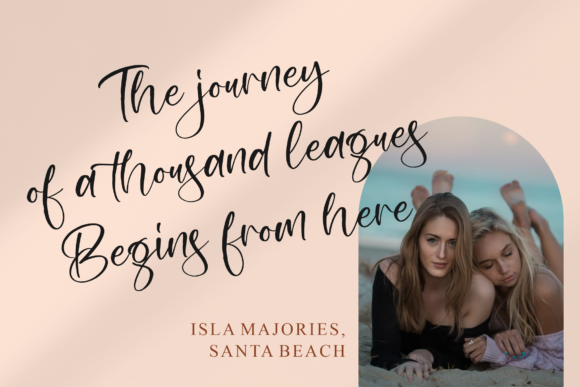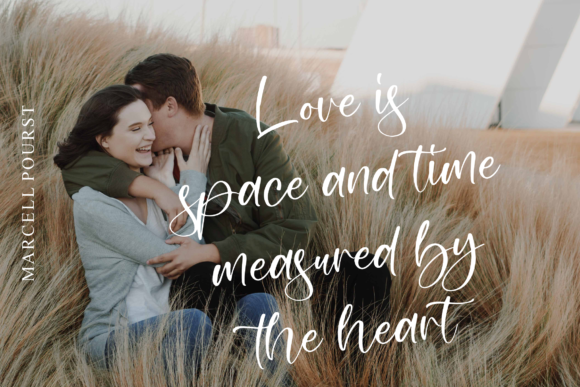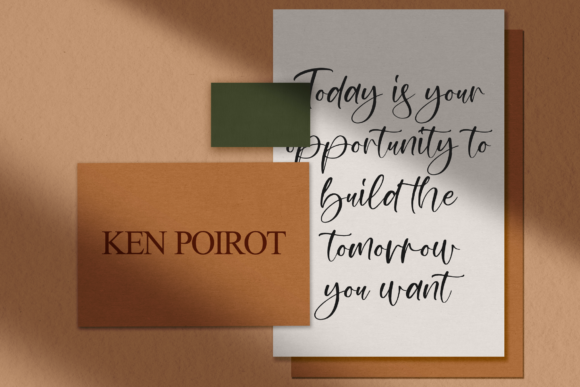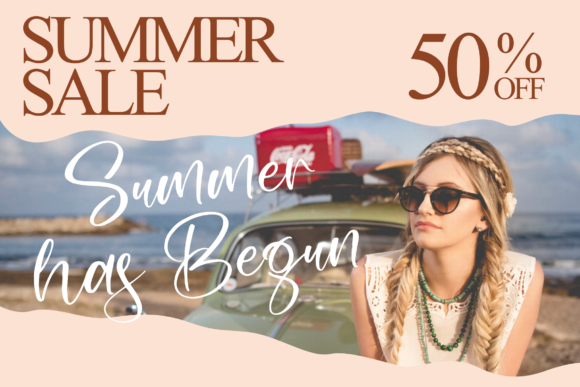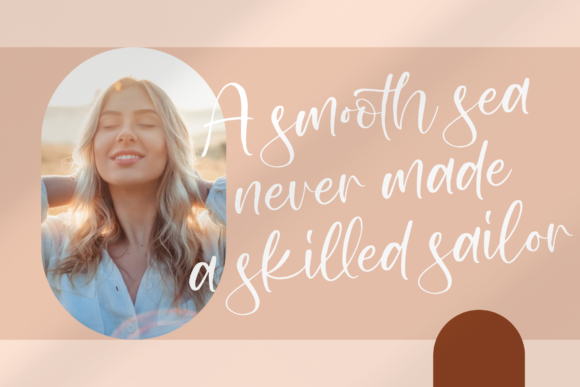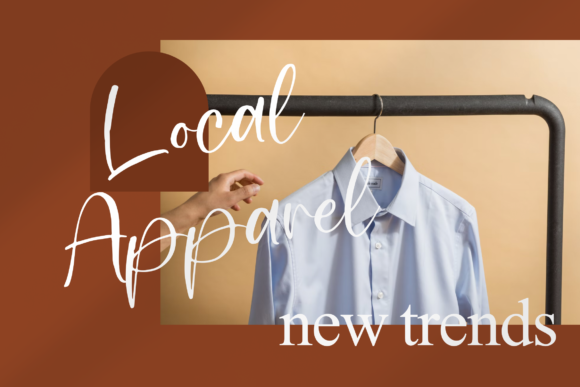
Introduction to Rebegha Font
Have you ever been stuck in a creative rut, searching for the perfect font to elevate your design project? We’ve all been there. As designers, we crave that one special element that brings our ideas to life. For those who need a touch of elegance and sophistication, we’re excited to introduce you to the Rebegha Font, a stunning modern script font from Letterfabric Studio.
This beautifully crafted font is not just a design resource, but a game-changer for any creative project. With its high-quality design and transparent background, the Rebegha Font is perfect for logos, branding projects, homeware designs, and so much more. Whether you’re working on a product packaging design, a quote for a mug, or a special event invitation, this font is sure to add a touch of class and sophistication to your work.
Key Features of Rebegha Font
- Unique, modern design with a wide range of customization options
Honest Review: Rebegha Font
As a designer, I’m always on the lookout for high-quality design resources to elevate my creative projects. The Rebegha Font caught my attention, and I was excited to dive in and see what it had to offer.
- ✨ The Rebegha Font has a unique and stylish aesthetic that can add a touch of sophistication to any design project.
- ✨ The font features a transparent background, which is perfect for designers who need to create vector-based designs.
Overall, I was impressed with the Rebegha Font’s design and functionality. While it may not be perfect for every project, it’s an excellent resource for designers working on creative projects that require a unique and stylish font. With its high quality and transparent background, the Rebegha Font is definitely worth considering for your next design project.
How to Use Rebegha Font
The Rebegha Font is a versatile design resource that offers a high-quality, elegant look for any creative project. With its transparent background, it can be easily integrated into various design platforms.
Tips for Getting the Most Out of Rebegha Font
Experiment with different font sizes and styles to create a visually appealing design. You can also pair the Rebegha Font with other fonts to create a unique look.
The Rebegha Font is suitable for a wide range of creative projects, including business cards, invitations, and social media graphics. Its elegant look makes it an ideal choice for wedding invitations, fashion designs, and other luxury projects.